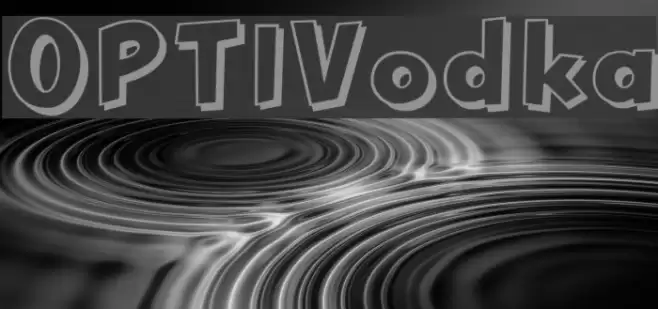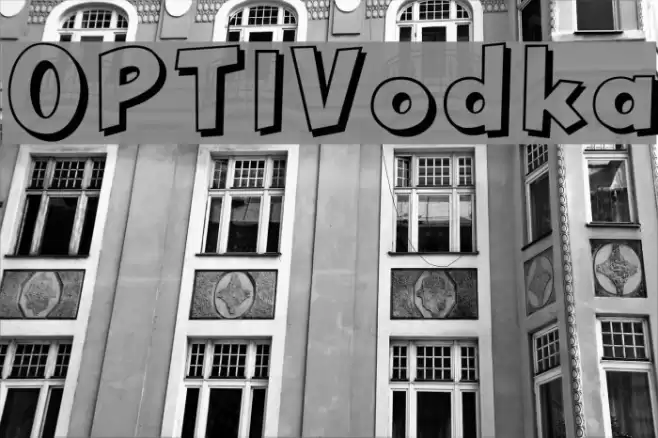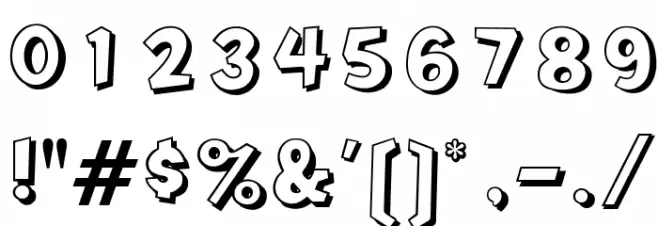
OPTIVodka Font
OPTIVodka Description
This font features a bold, playful style with a three-dimensional effect created by a shadow that gives depth to each character. The uppercase letters are particularly striking, with a strong presence and a slightly rounded shape that adds a friendly feel. The lowercase letters maintain the same playful aesthetic, ensuring consistency across different text cases. The numerals are equally bold and maintain the same shadow effect, making them stand out. Special characters are designed with the same attention to detail, ensuring they integrate seamlessly with the rest of the font. This font is ideal for projects that require a fun and engaging look, such as children's books, playful branding, or eye-catching headlines.
A bold, playful font with a 3D shadow effect, perfect for engaging and fun designs from Uncategorized fonts.
- Proposed Projects: Ideal for children's books, playful branding, eye-catching headlines, and creative posters.
- Overall Style: Playful, Modern